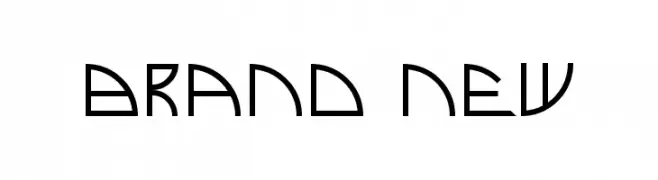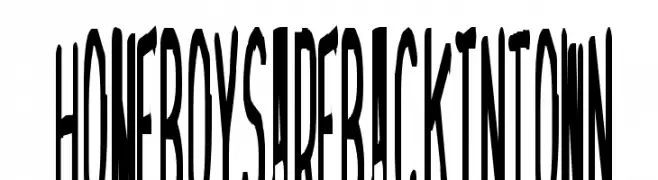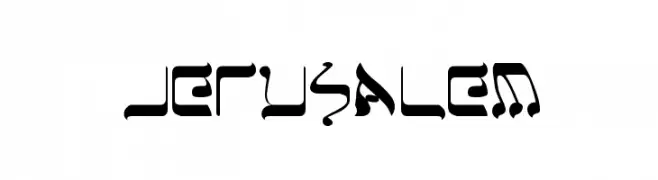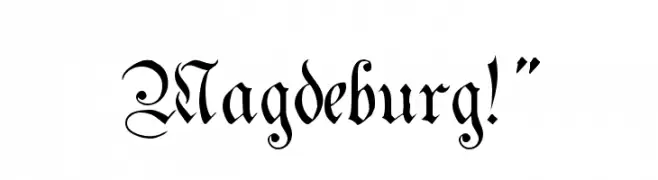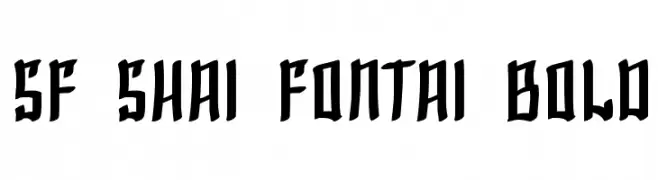
A bold, condensed font with a modern and intense style.
A bold, angular font with a blend of traditional and modern geometric elements.
A whimsical and decorative font with tall, slender uppercase letters and unique embellishments.
( Fonts by Rob Dobi - Toxic Type - www.dobi.nu )
A bold, distressed font with a rugged, eroded appearance.
( Fonts by ShyFonts )
A bold, gothic-inspired font with sharp, angular edges and a dramatic style.
A futuristic, geometric font with a sleek and modern design.